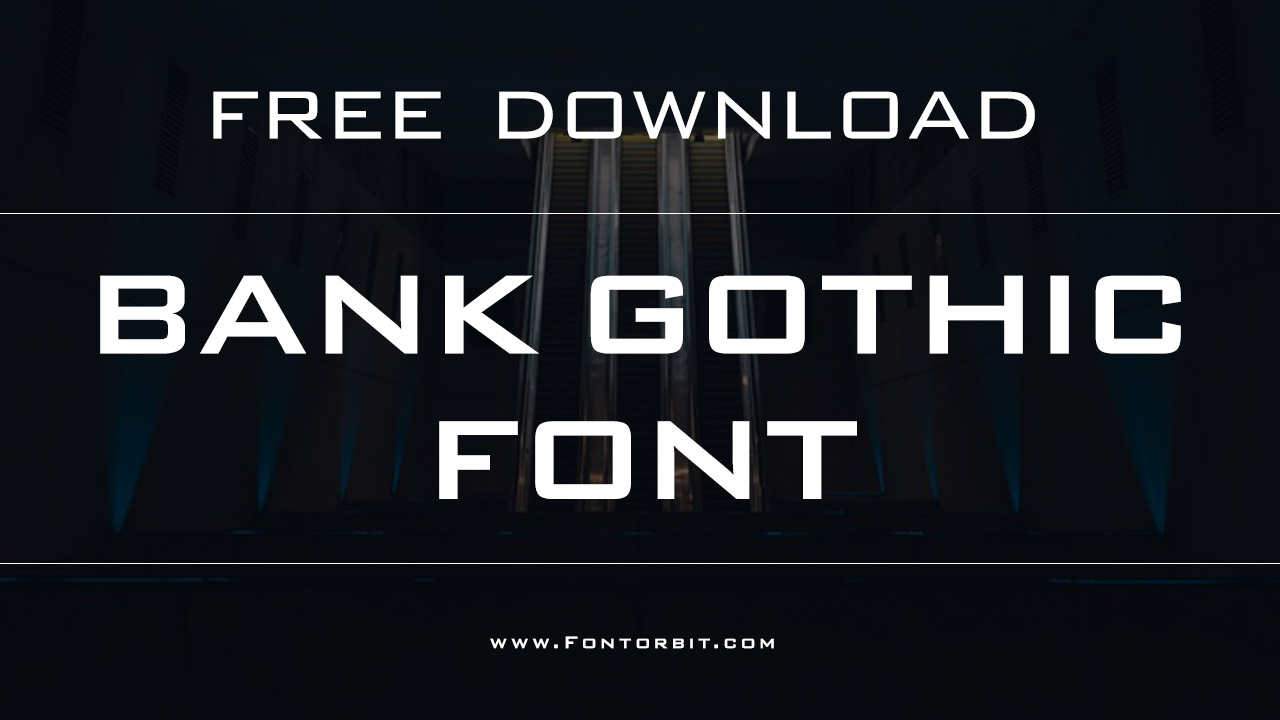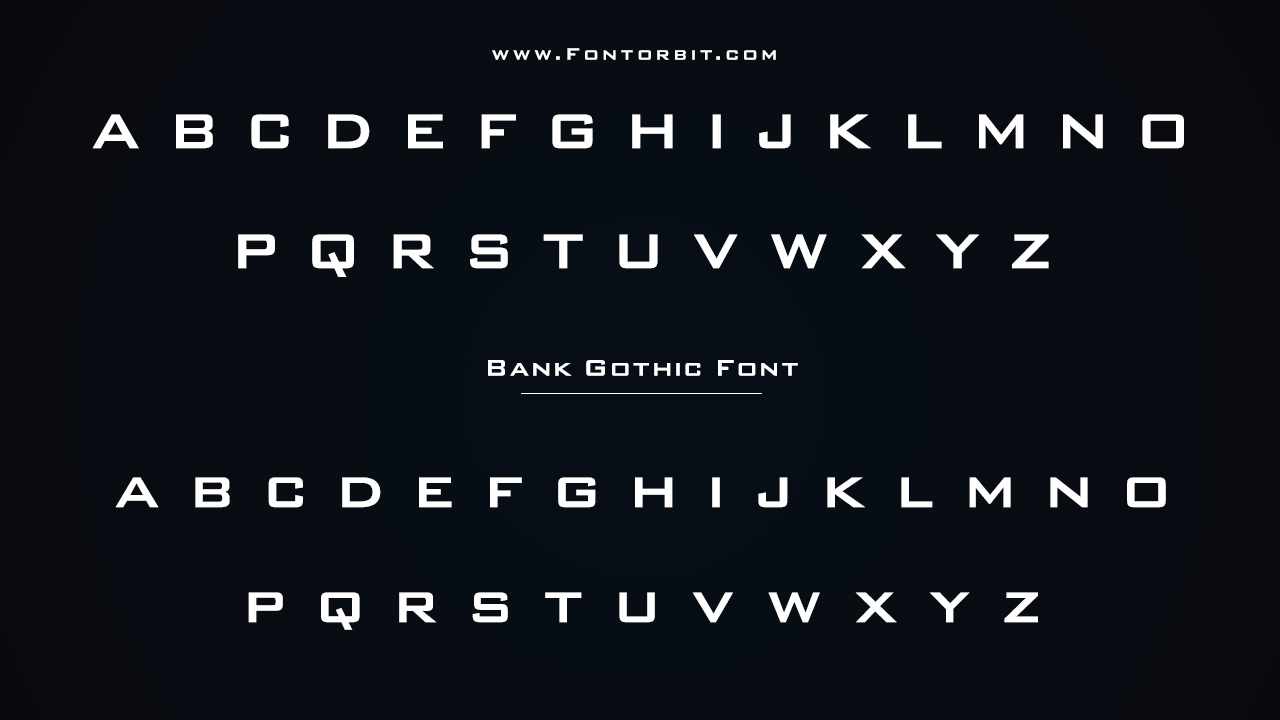
Bank Gothic is a geometric sans-serif typeface designed by Morris Fuller Benton and published in 1930. This font is recognized for its modern and sleek design, featuring sharp angles and a clean, minimalistic look that makes it both distinctive and versatile.
Bank Gothic is categorized under the Gothic family, which typically includes typefaces characterized by their bold and straightforward aesthetic, often used to convey strength and stability in design.
The Bank Gothic font family offers a variety of weights and styles that allow designers to choose the perfect fit for their projects. It provides flexibility for different design needs, enhancing visual appeal while maintaining legibility.
Bank Gothic is a versatile typeface that fits well in numerous applications:
- Packaging Design
- Digital Content
- Commercial advertisements
- Corporate branding materials
- Web design
- User interfaces
Bank Gothic continues to be a favored choice among designers due to its modernity and versatility. Its clear lines and bold appearance make it suitable for both print and digital applications. Whether used for branding, advertising, or editorial purposes, Bank Gothic’s unique style can enhance any design project.
1.Where Can I Use Bank Gothic?
It’s suitable for advertising, branding, digital content, and signage due to its clear and bold nature.
2.What Is The Primary Usage Of Bank Gothic?
Its primary use is for strong visual identities in marketing materials, advertisements, and media projects.
3.Can Bank Gothic Be Used For Print?
Yes, it works well in both digital and print formats, making it versatile for all types of media.
4.Does Bank Gothic Support Multiple Languages?
Limited language support; primarily focuses on Latin characters and may not support accented characters fully.
5.Are There Any Similar Fonts To Bank Gothic?
Yes, fonts like Arial Black and Eurostile are similar alternatives that provide a similar geometric aesthetic.